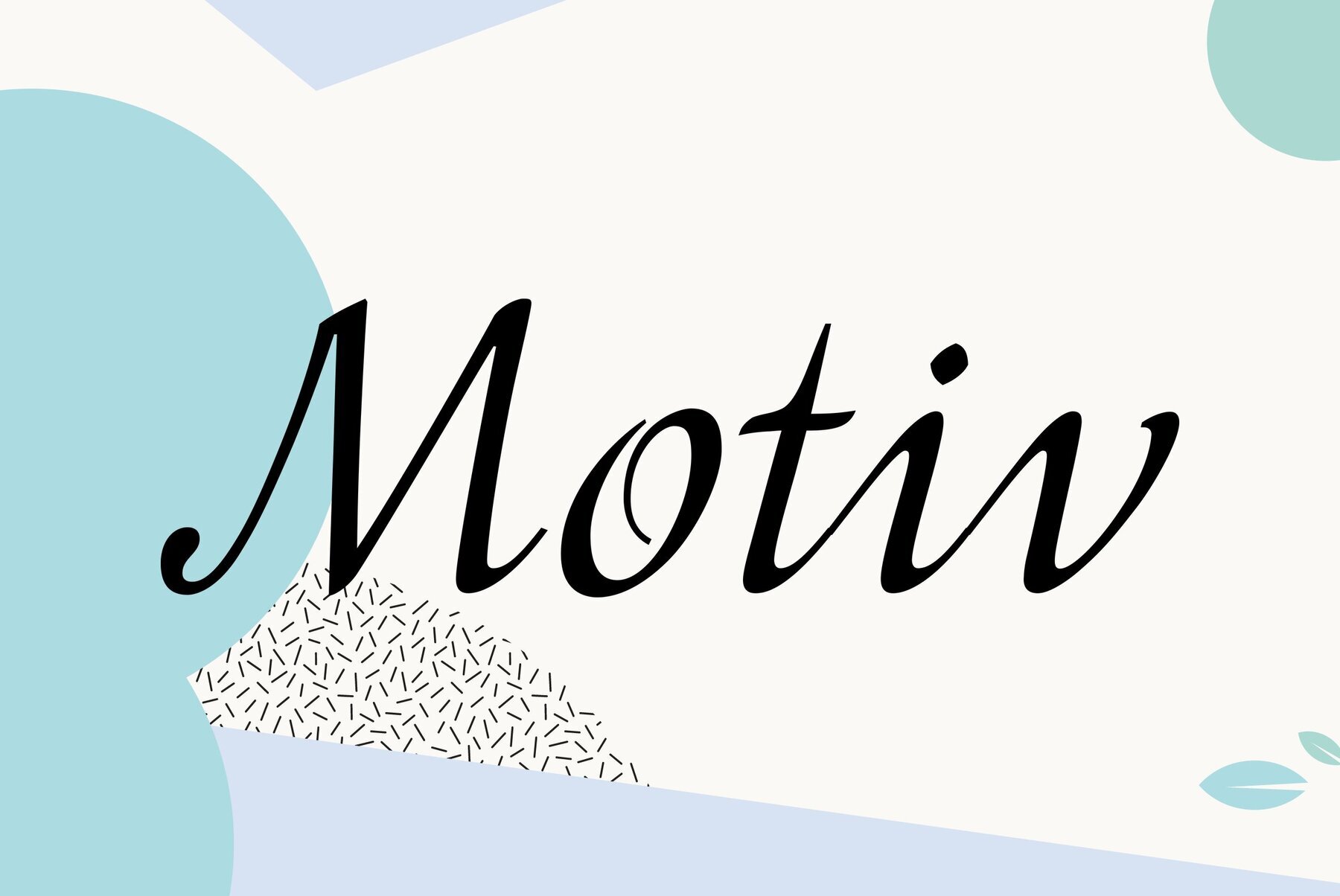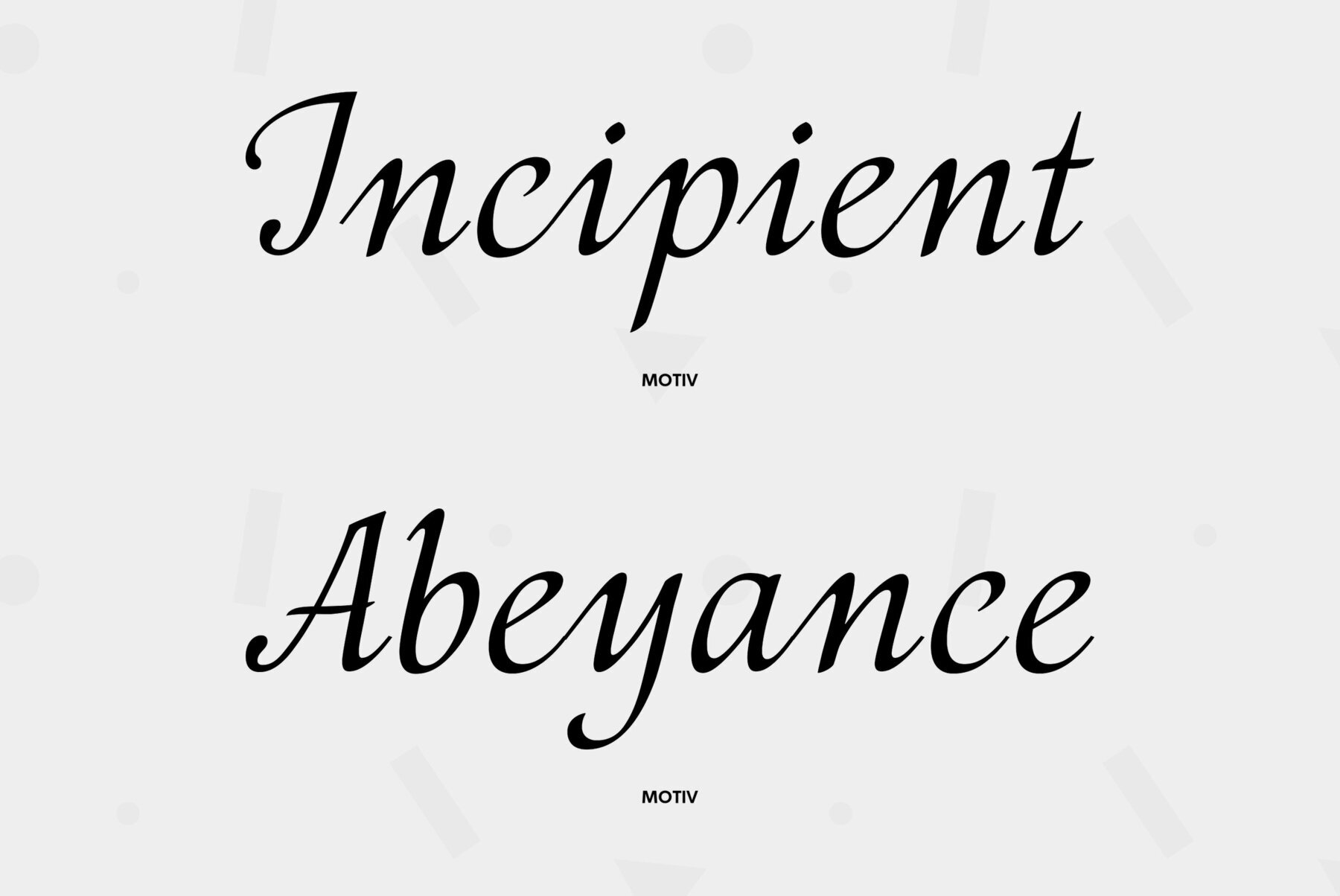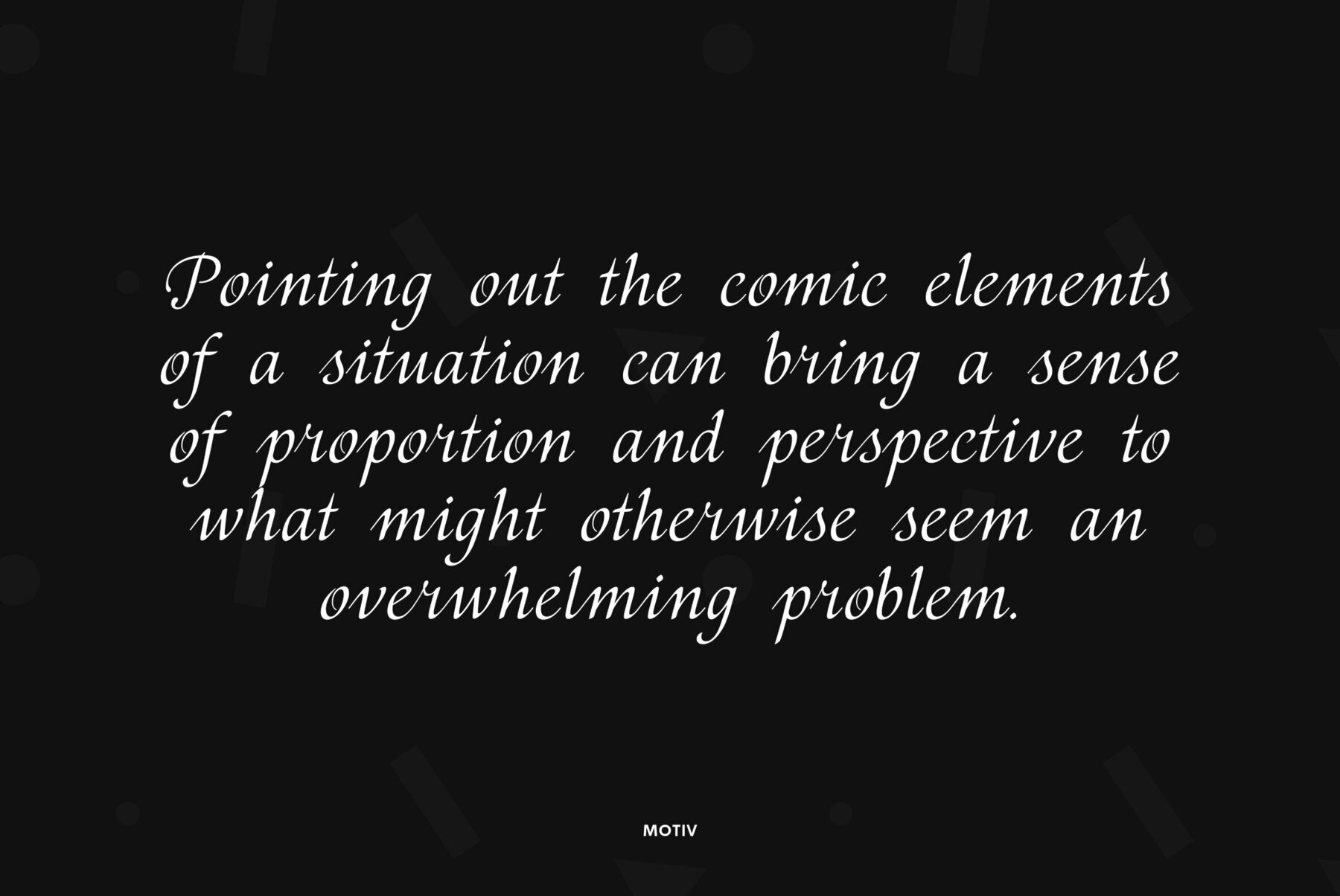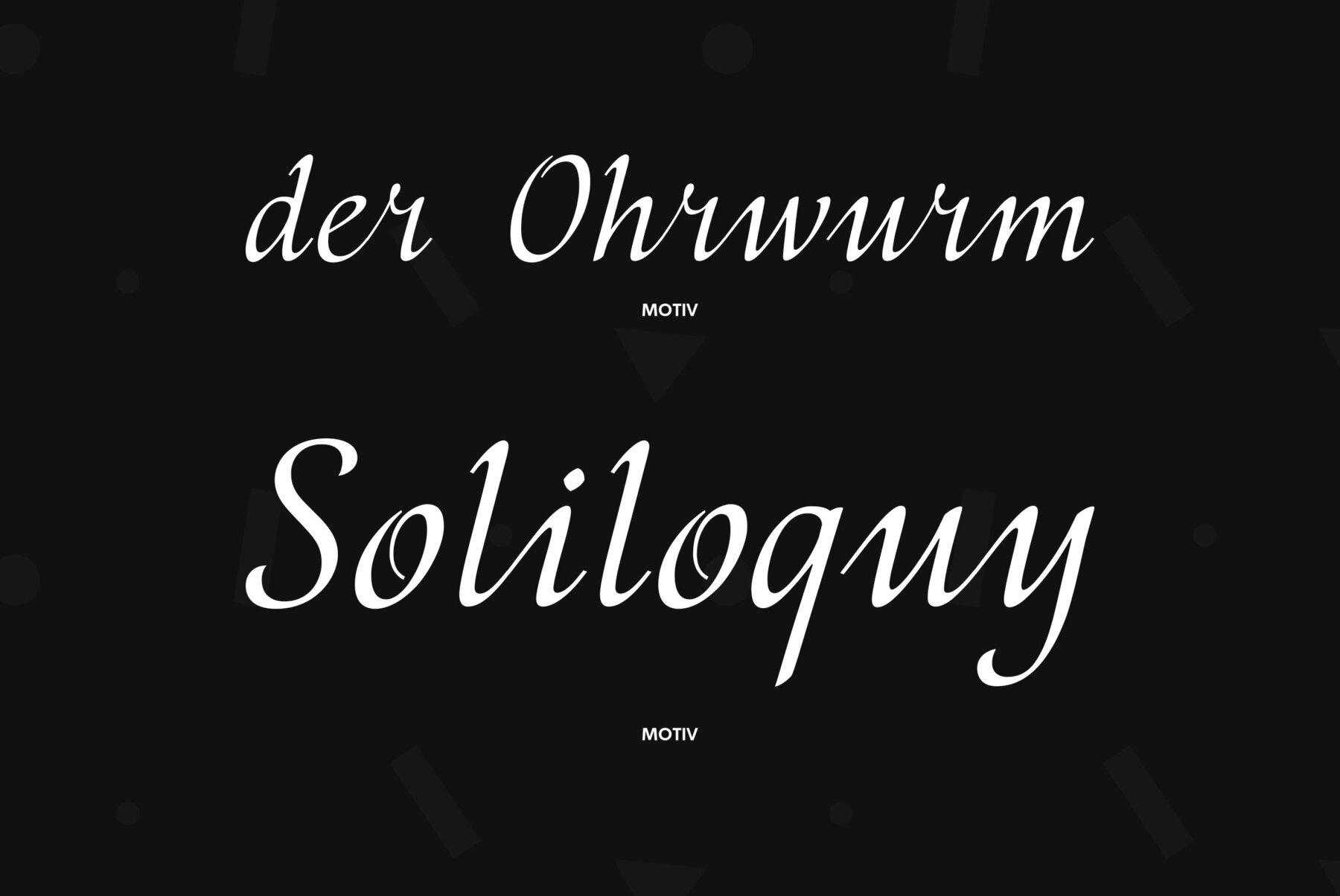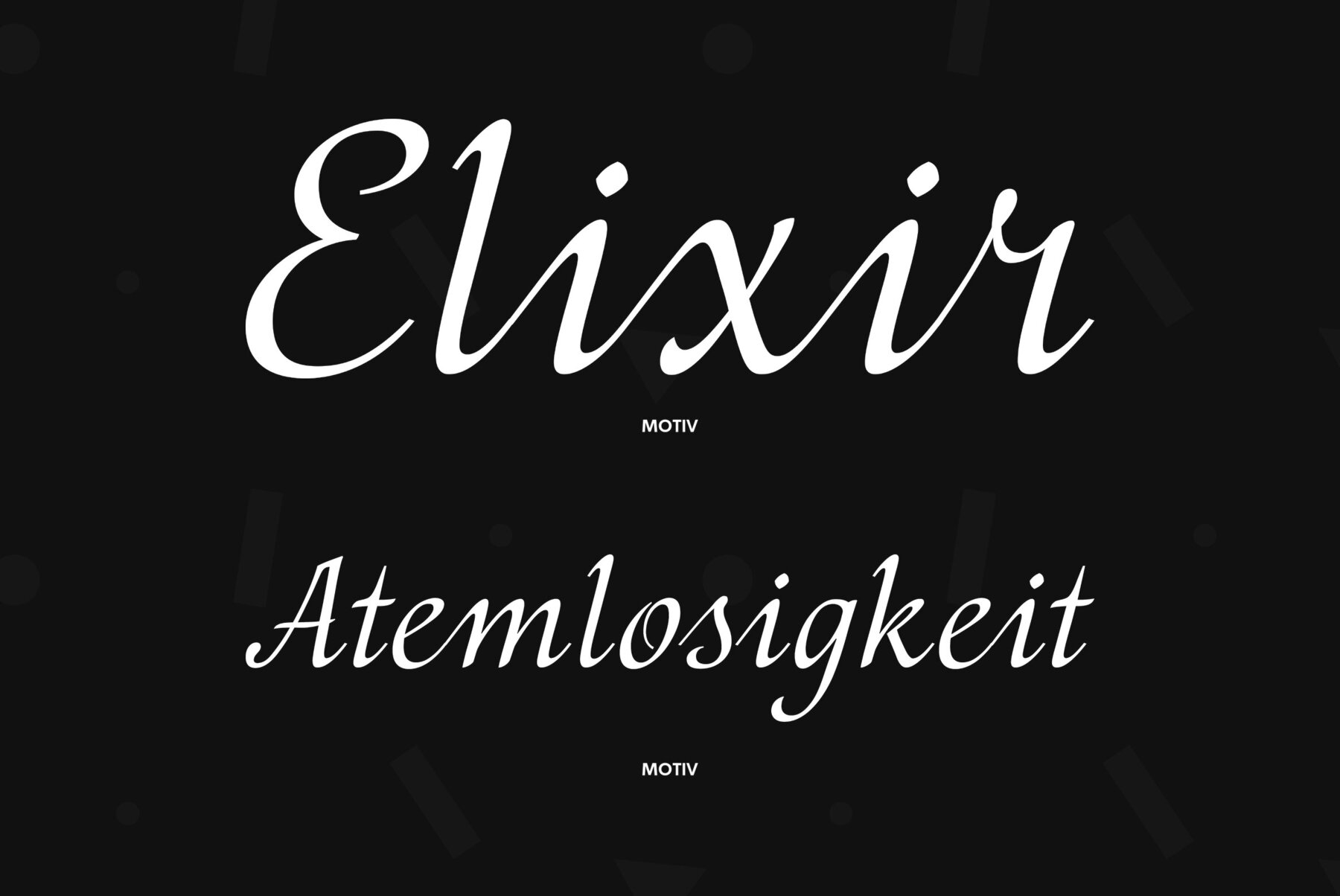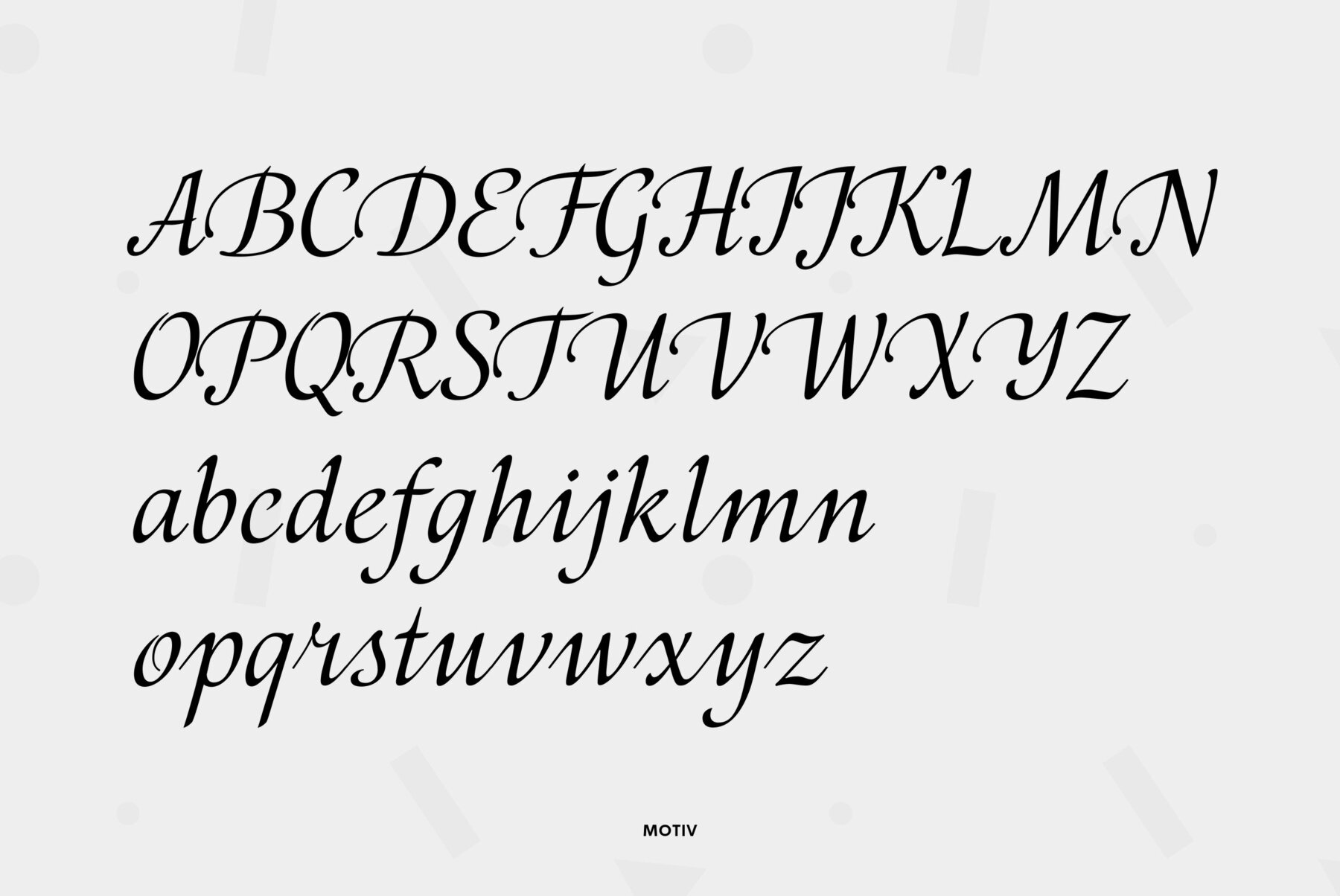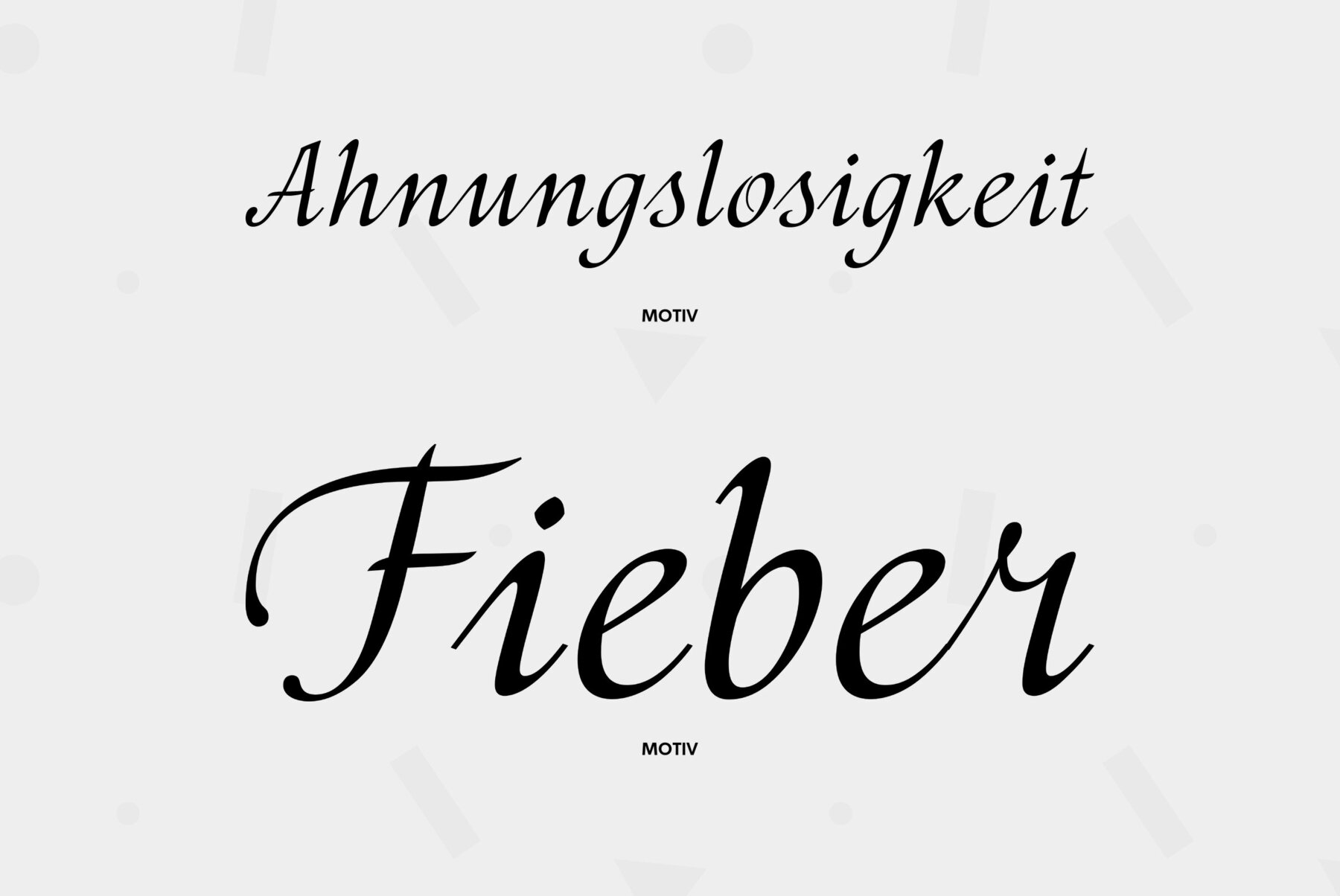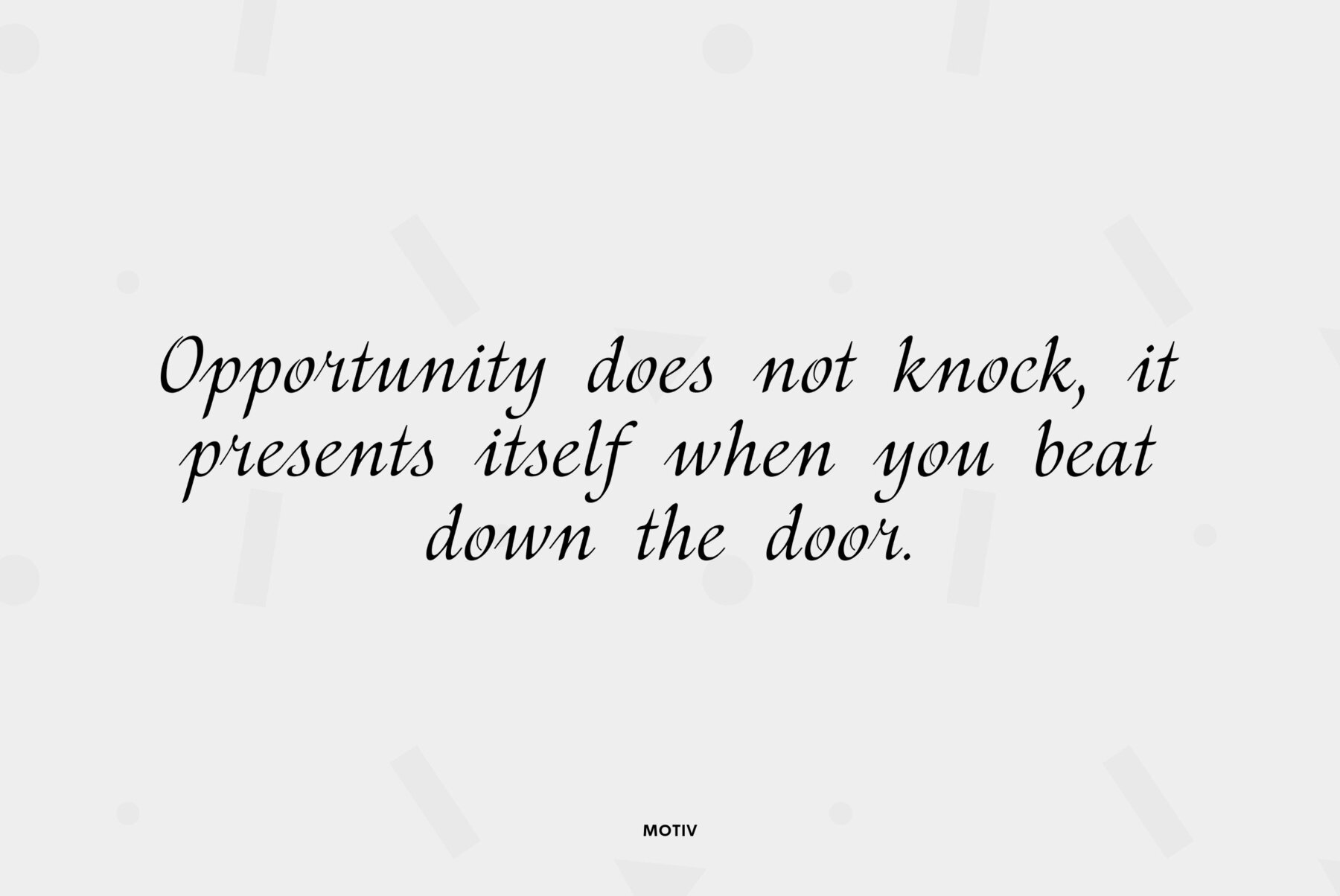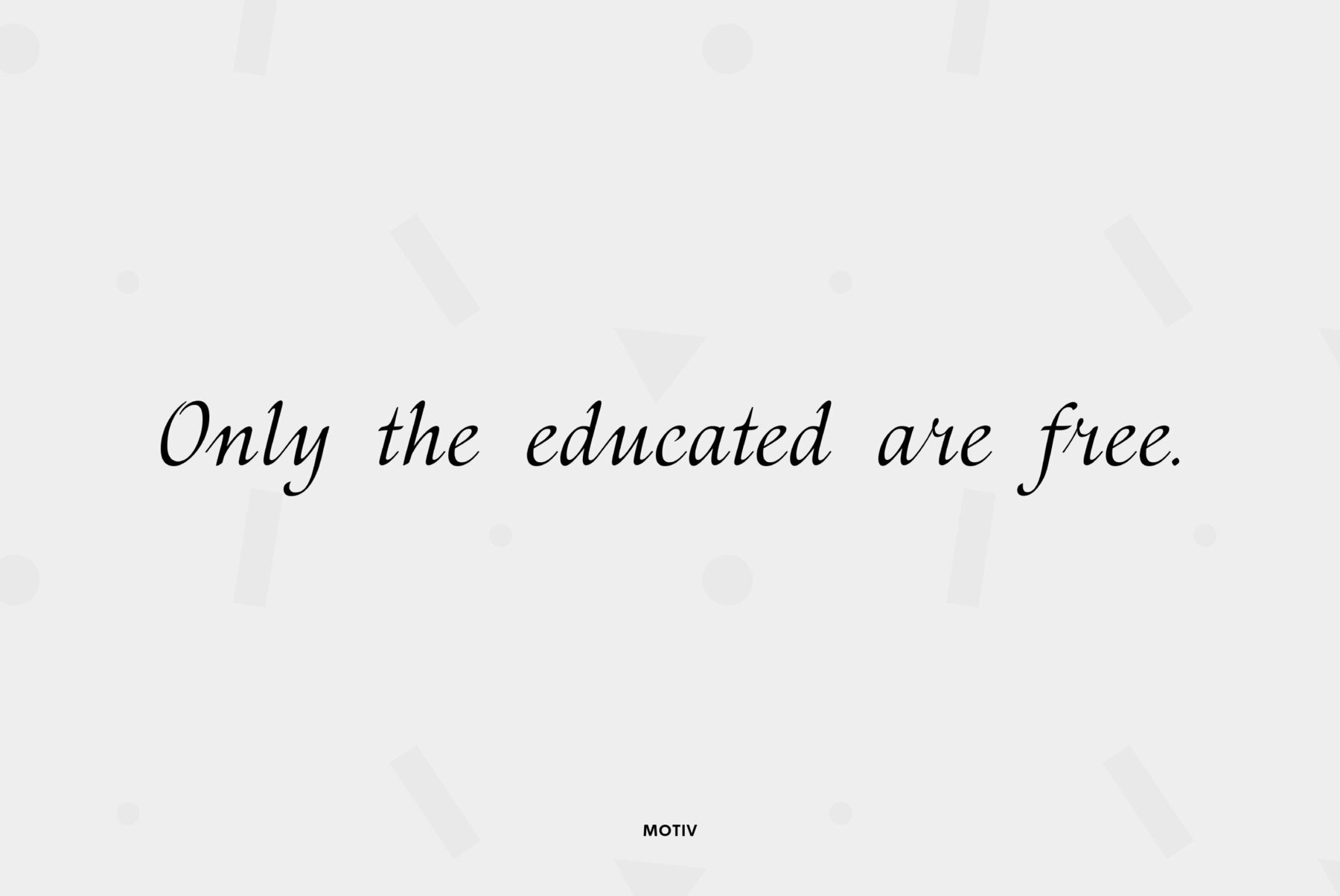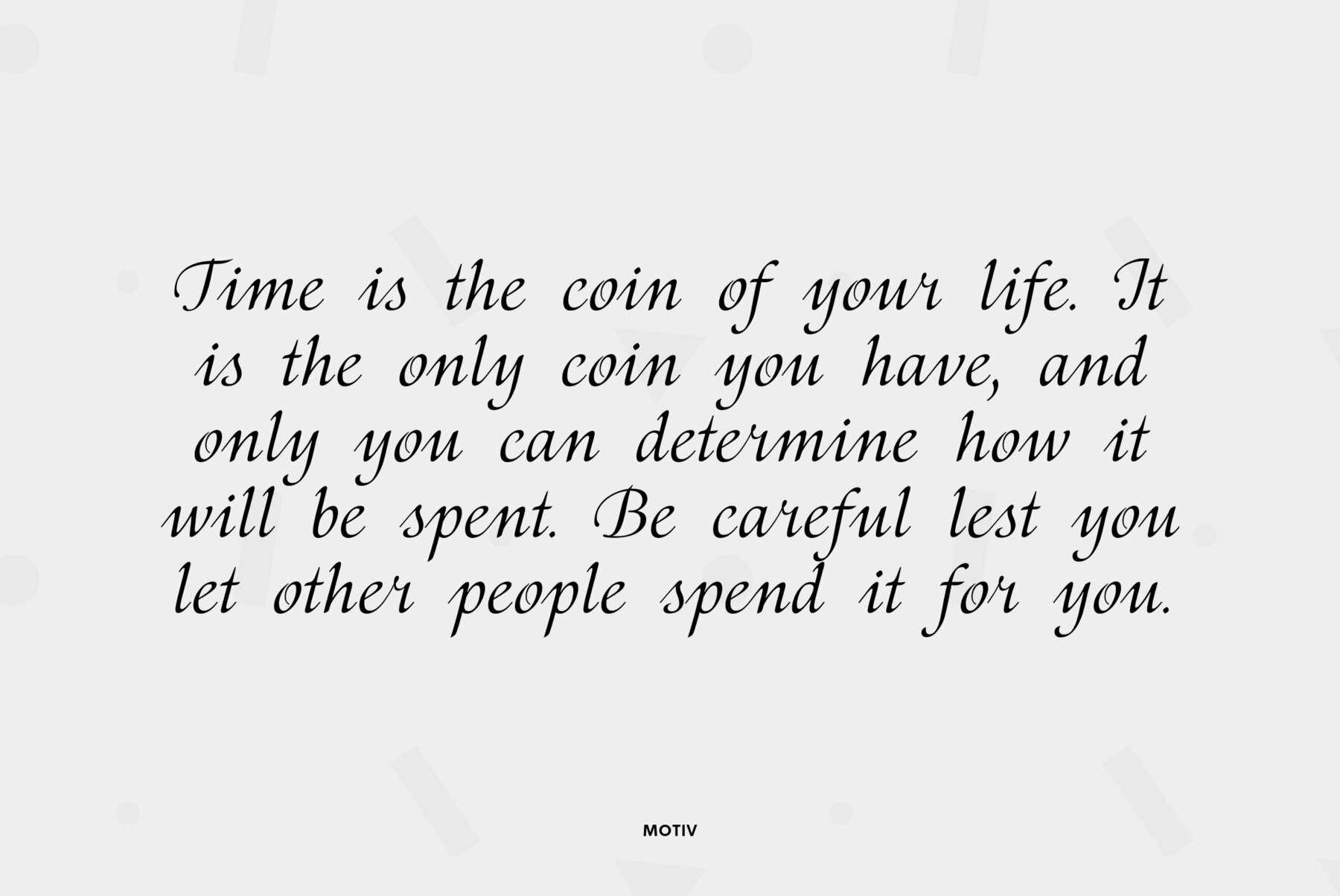
An original calligraphic script was designed by Natalya Vasilyeva and released by ParaType for advertizing and other display use. The first release of 2003 contained just Cyrillic character set. The font became very popular and in 2009 Natalya extended the set of signs to cover languages of Central and Western Europe. Together she made some corrections in design and spacing.